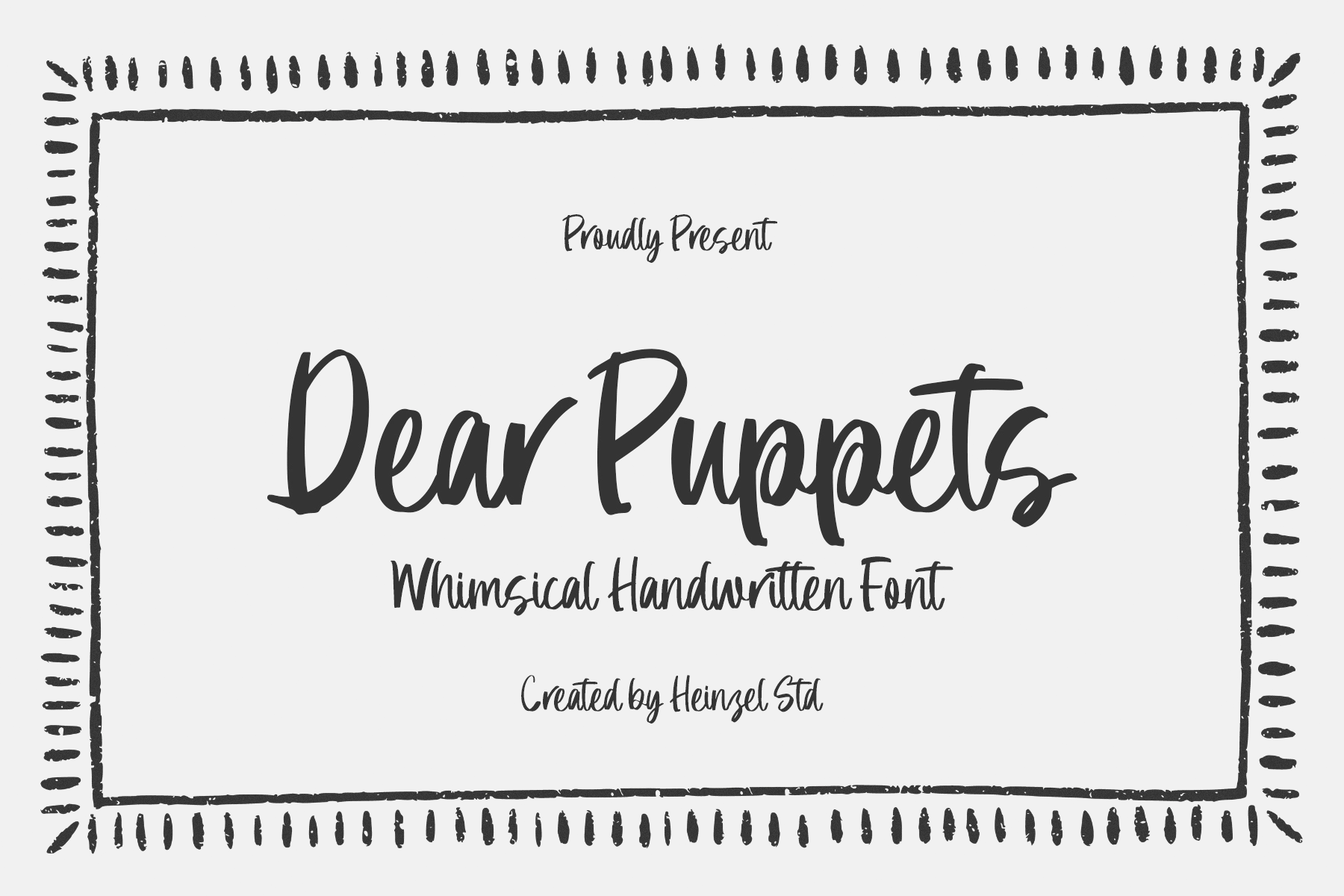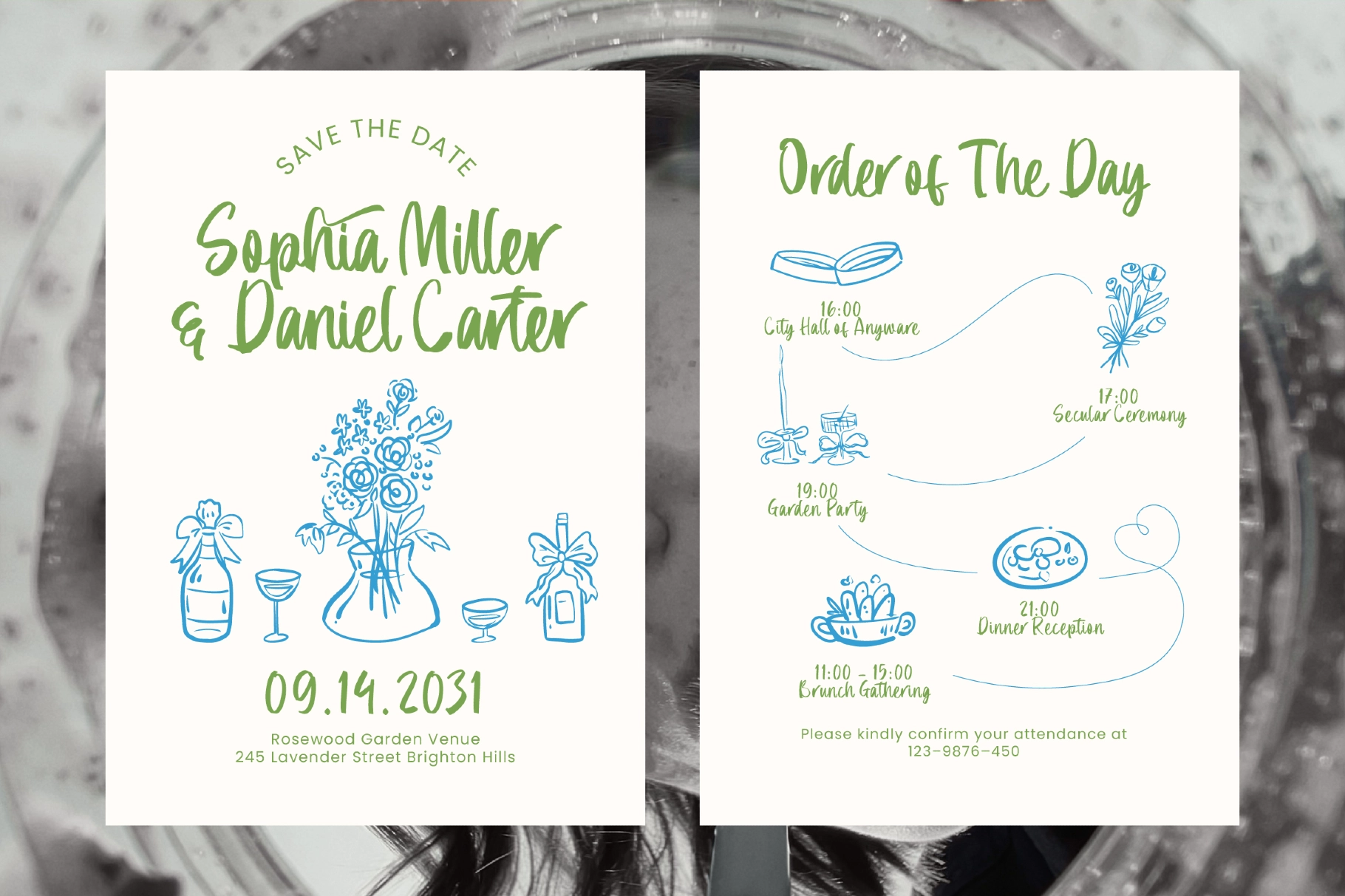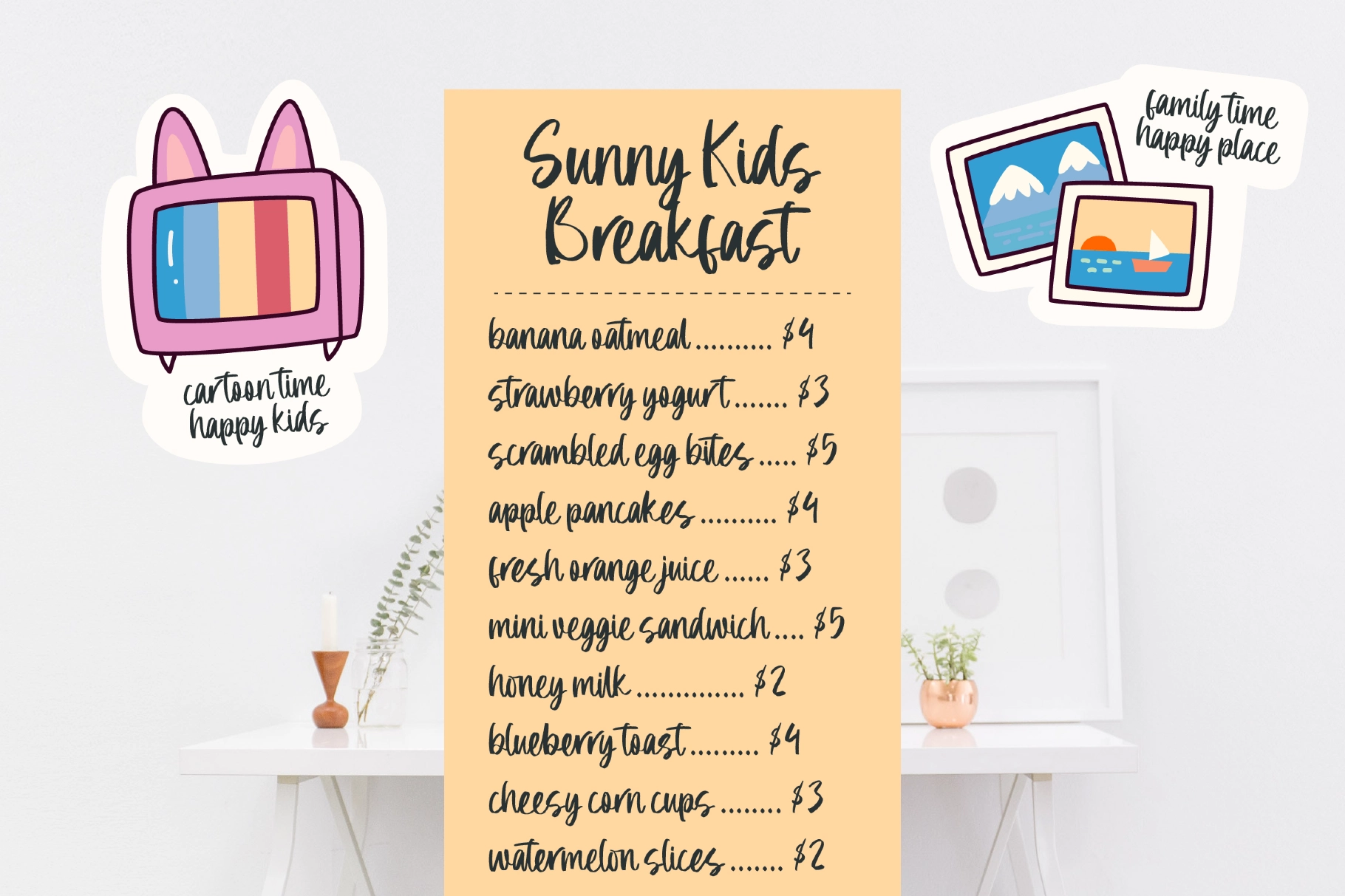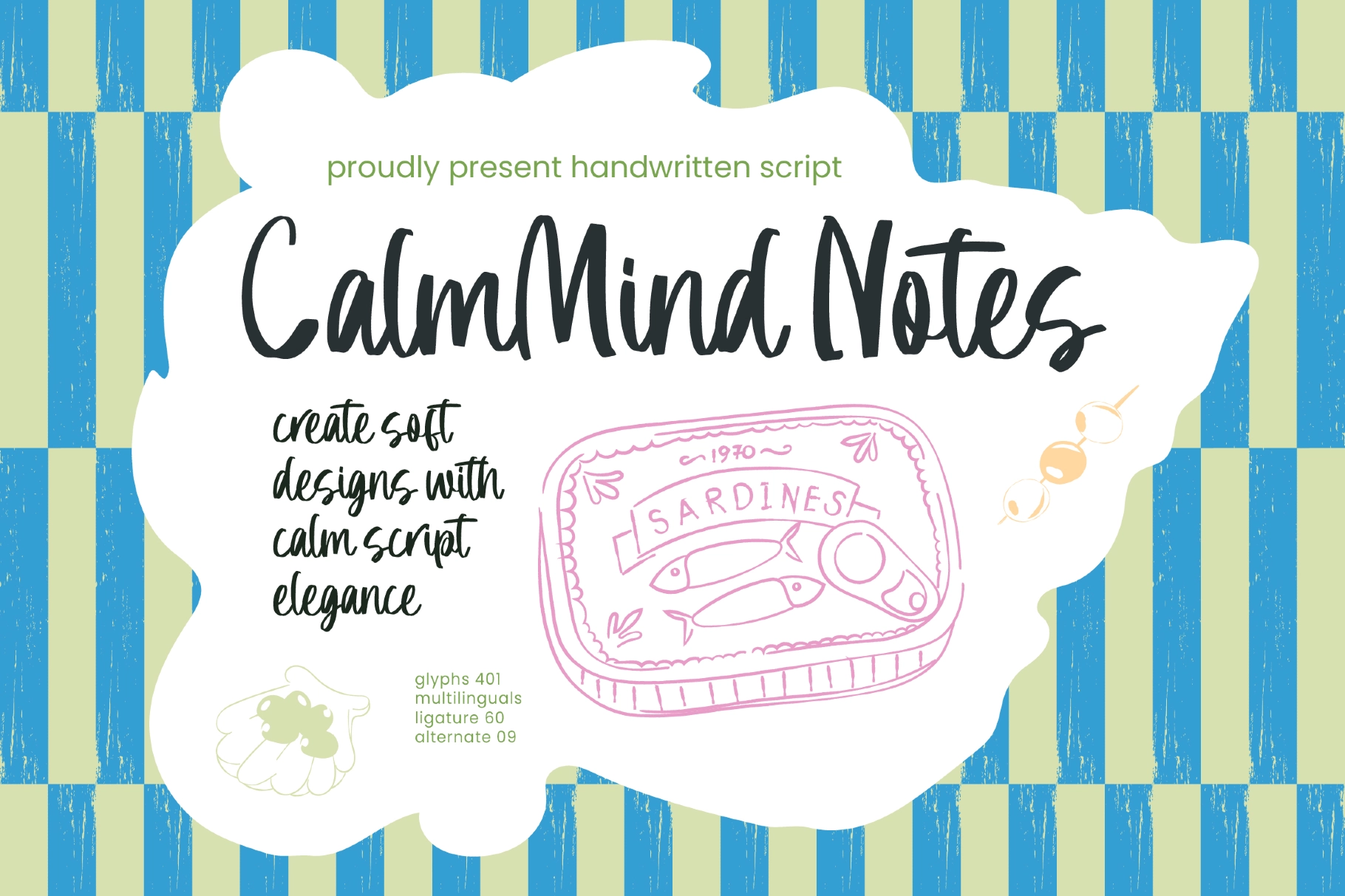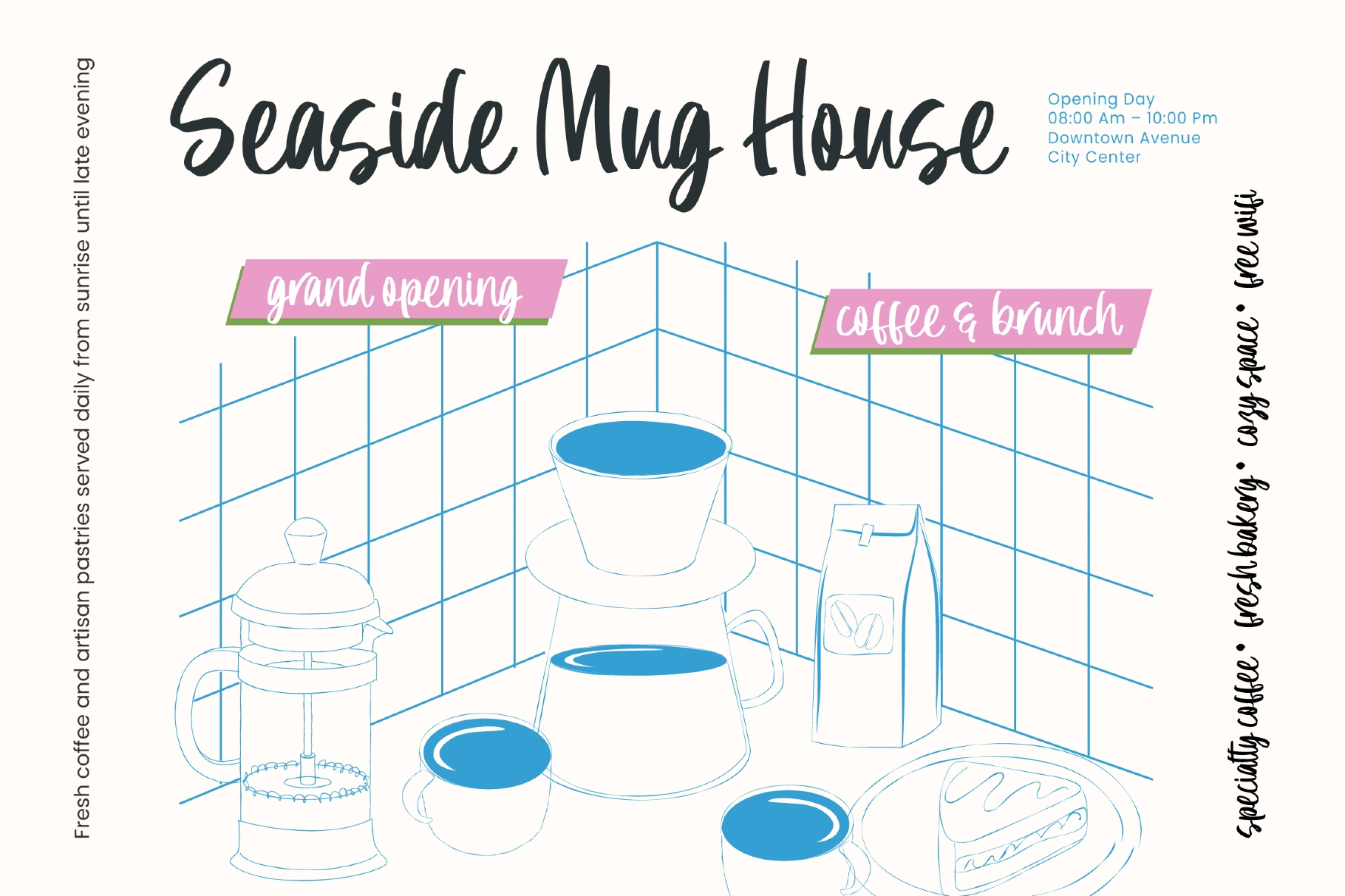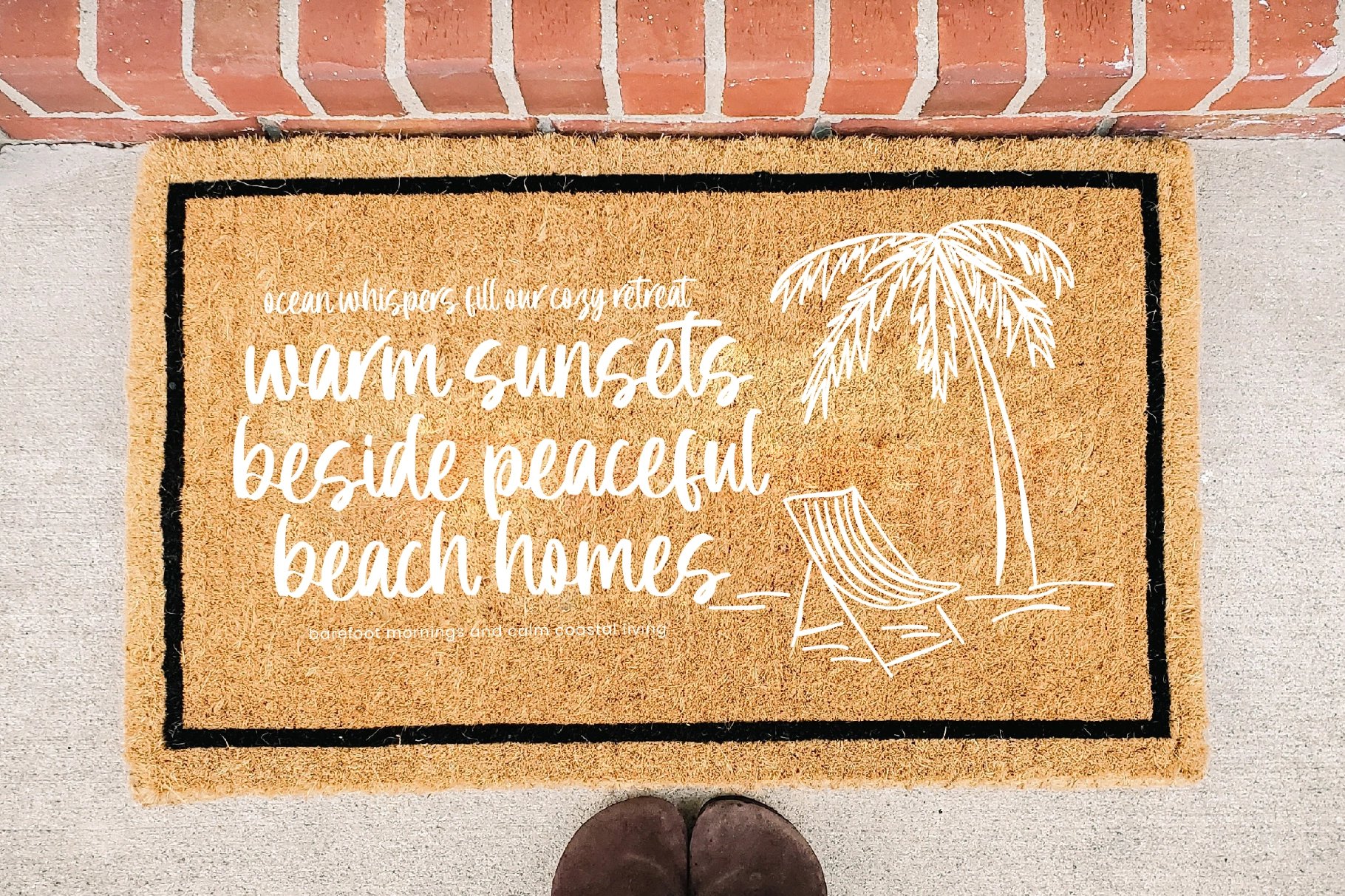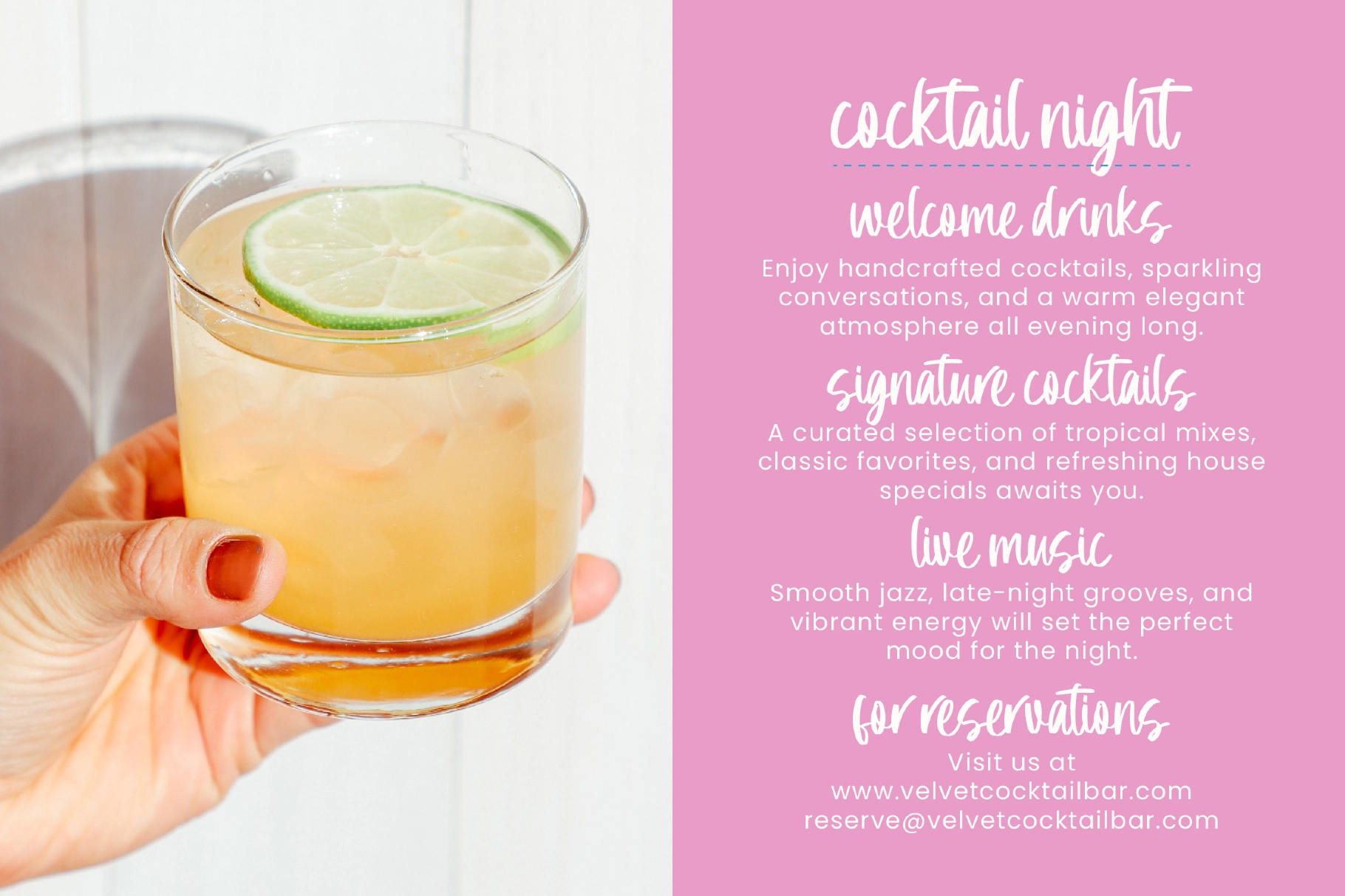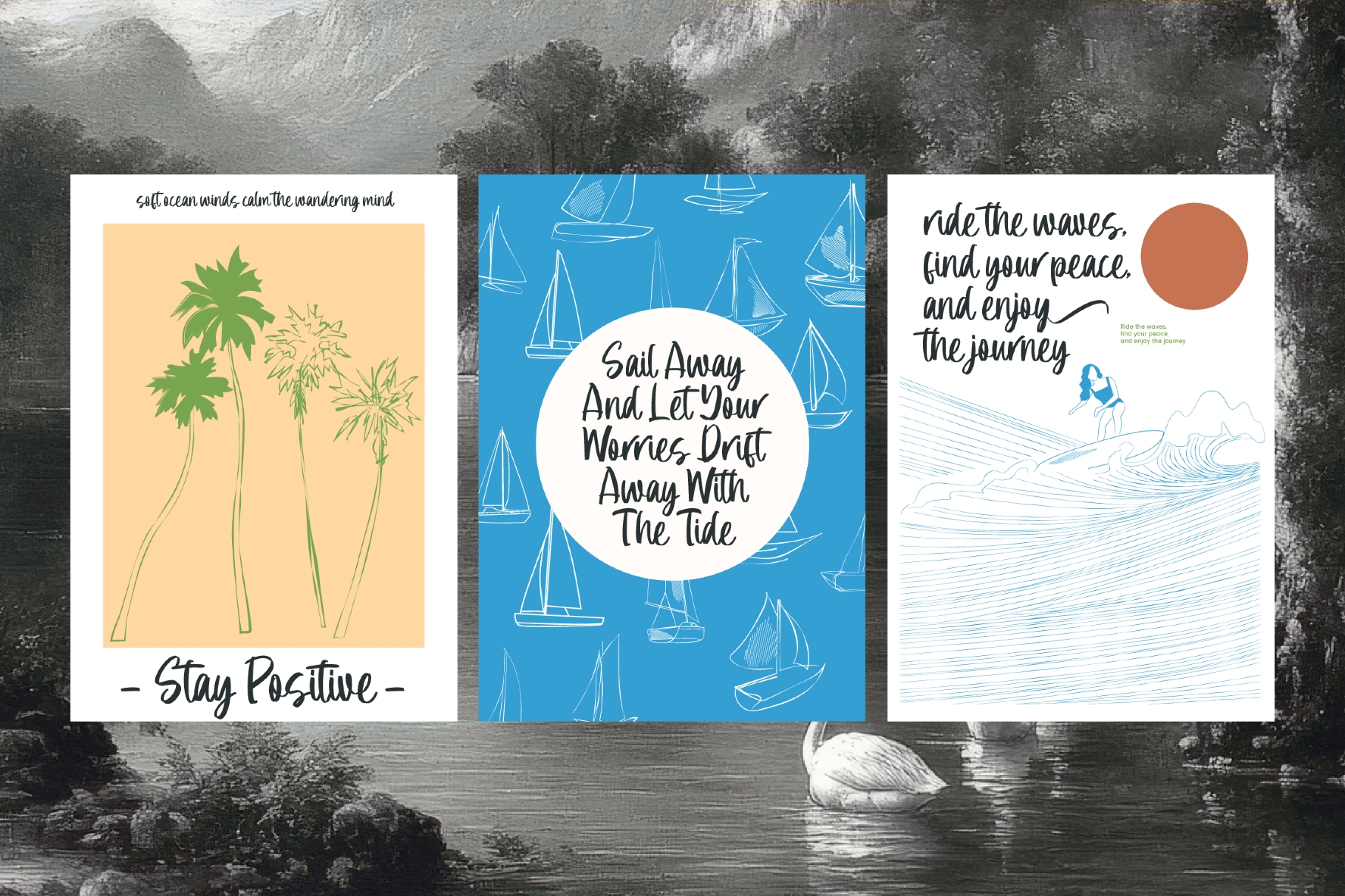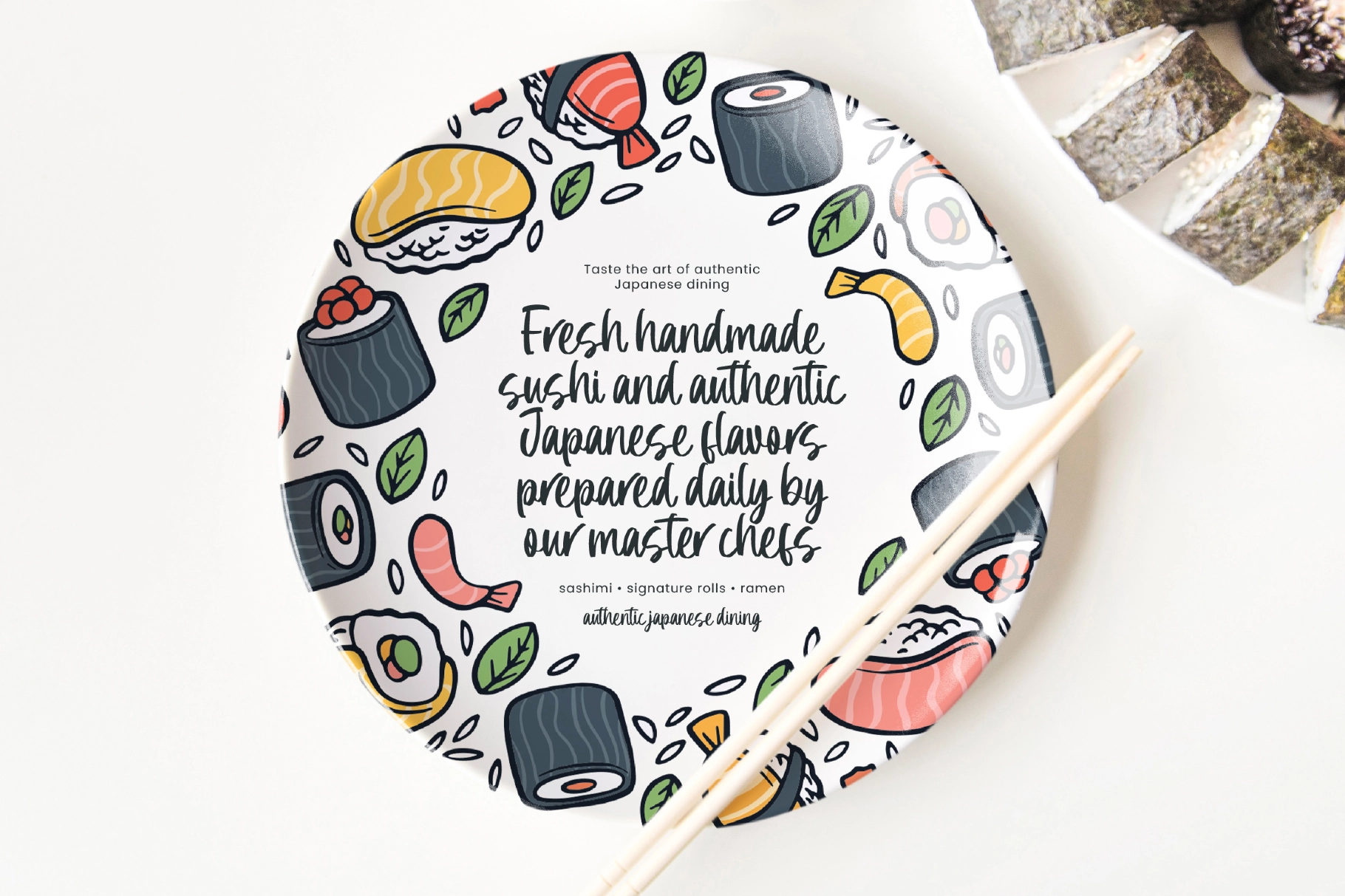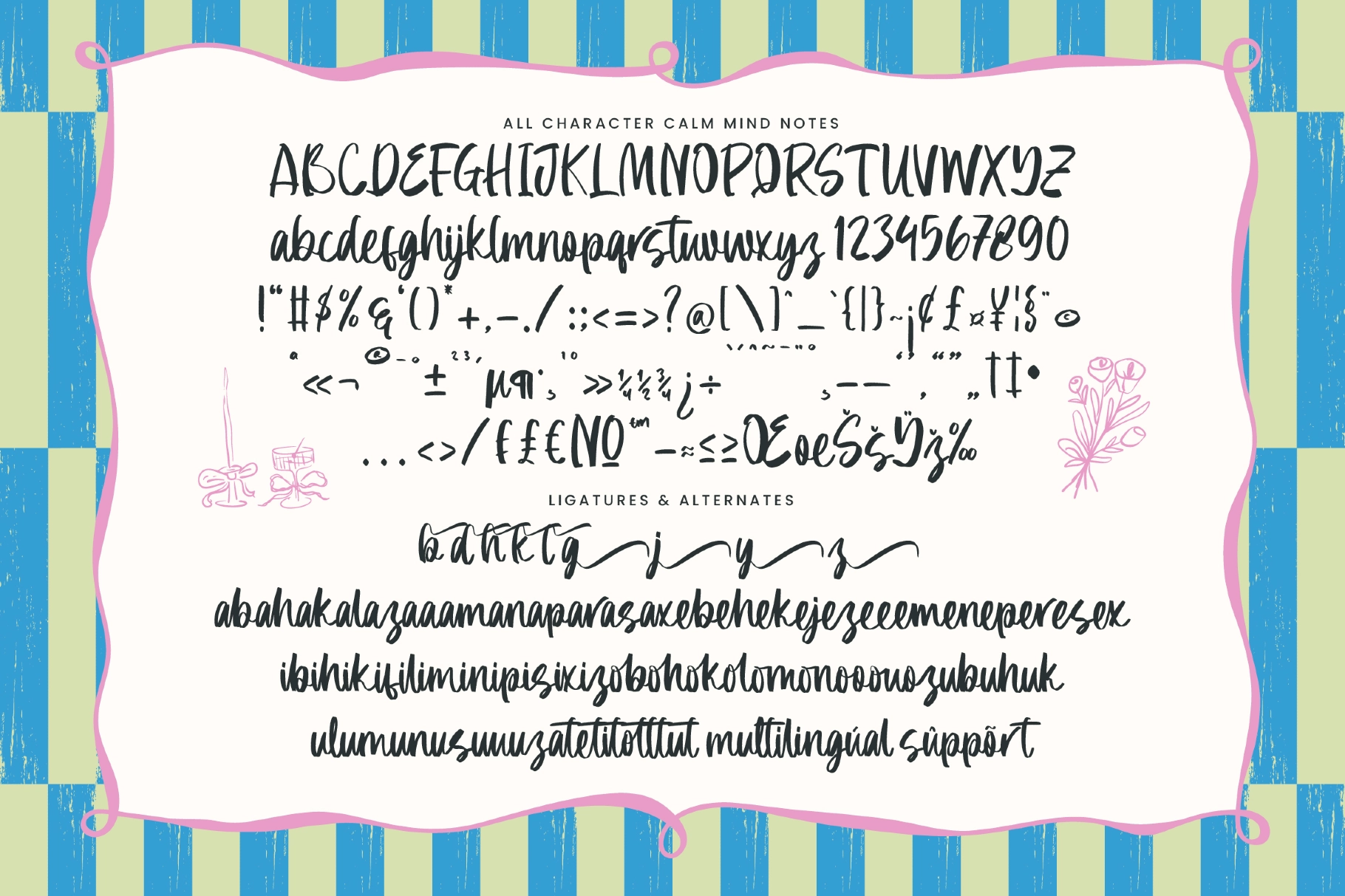
Dear Puppets - Whimsical Handwritten Font
This handwritten font has a playful script style with loose brush strokes, bouncy letterforms, and a friendly hand-drawn rhythm. Its imperfect edges and lively baseline give the type a casual, crafty charm, ideal for designs that need personality without getting too polished for their own good.
Dear works well for kids’ branding, breakfast menus, classroom materials, greeting cards, sticker designs, cafe signage, party invitations, packaging labels, quote graphics, craft projects, wall art, doormats, social media posts, and more. The script has a soft, cheerful voice that suits family-focused designs, handmade products, children’s events, playful hospitality projects, and relaxed lifestyle branding.
- 401 glyphs
- 60 ligatures
- 9 alternates